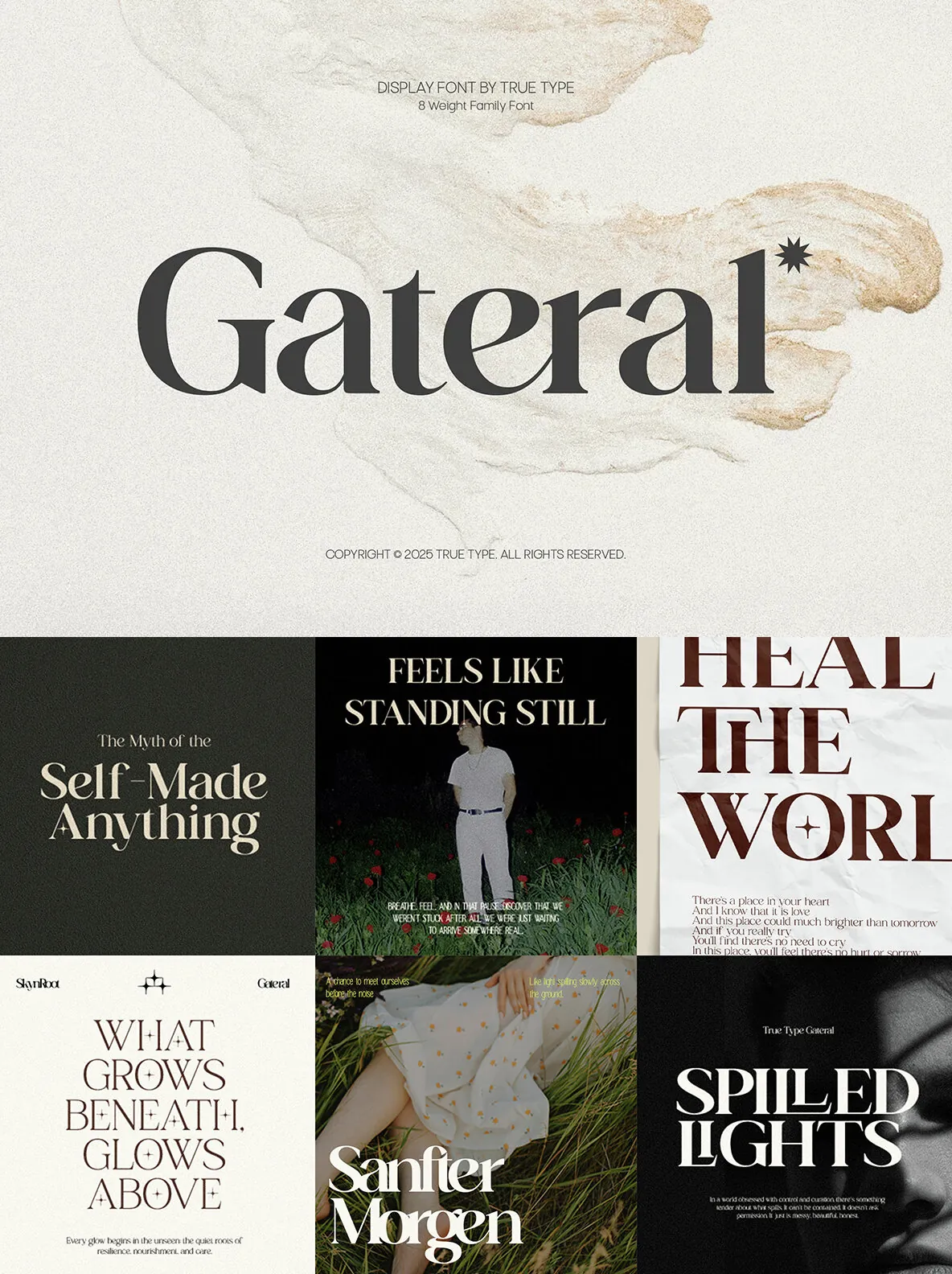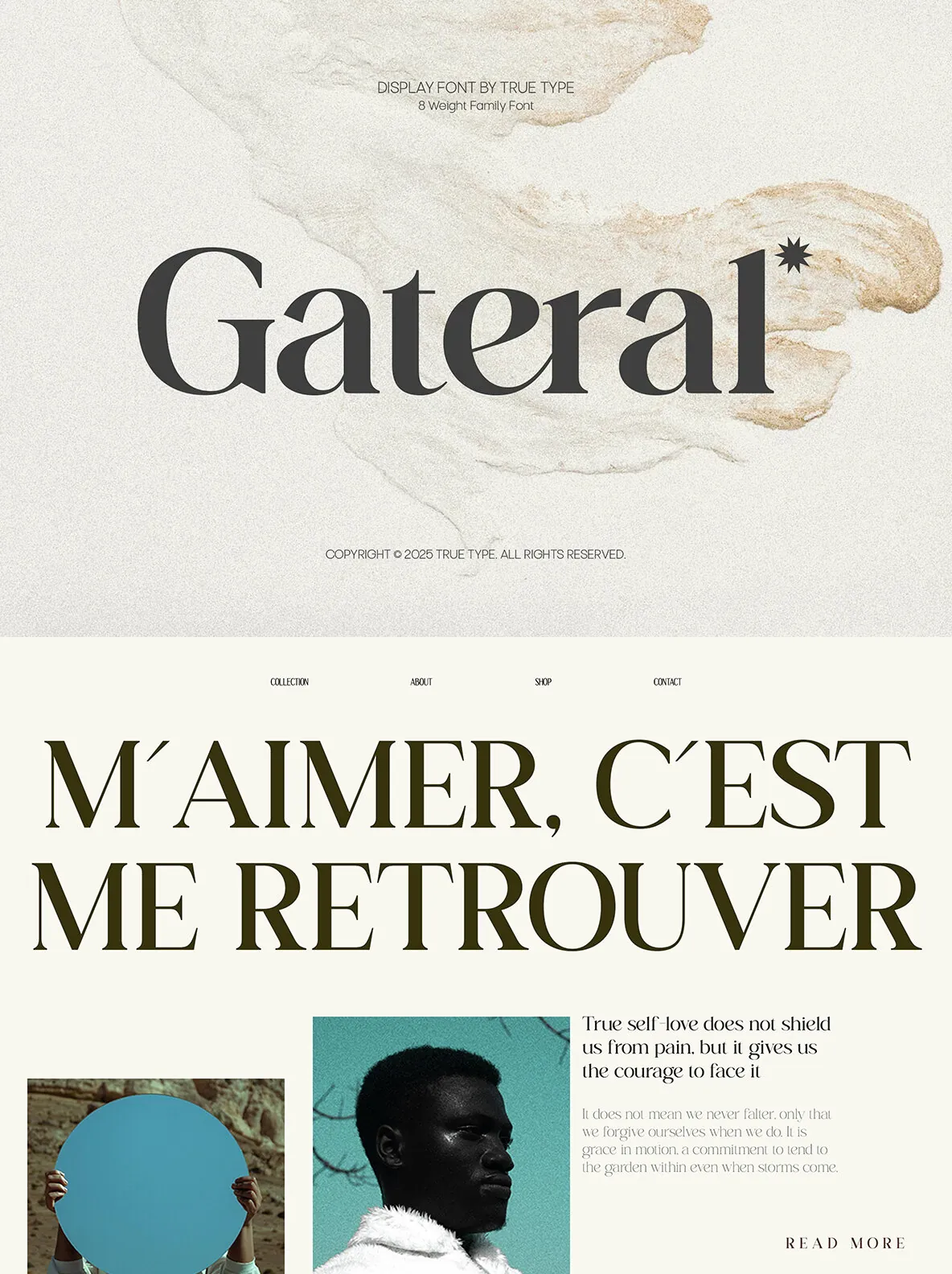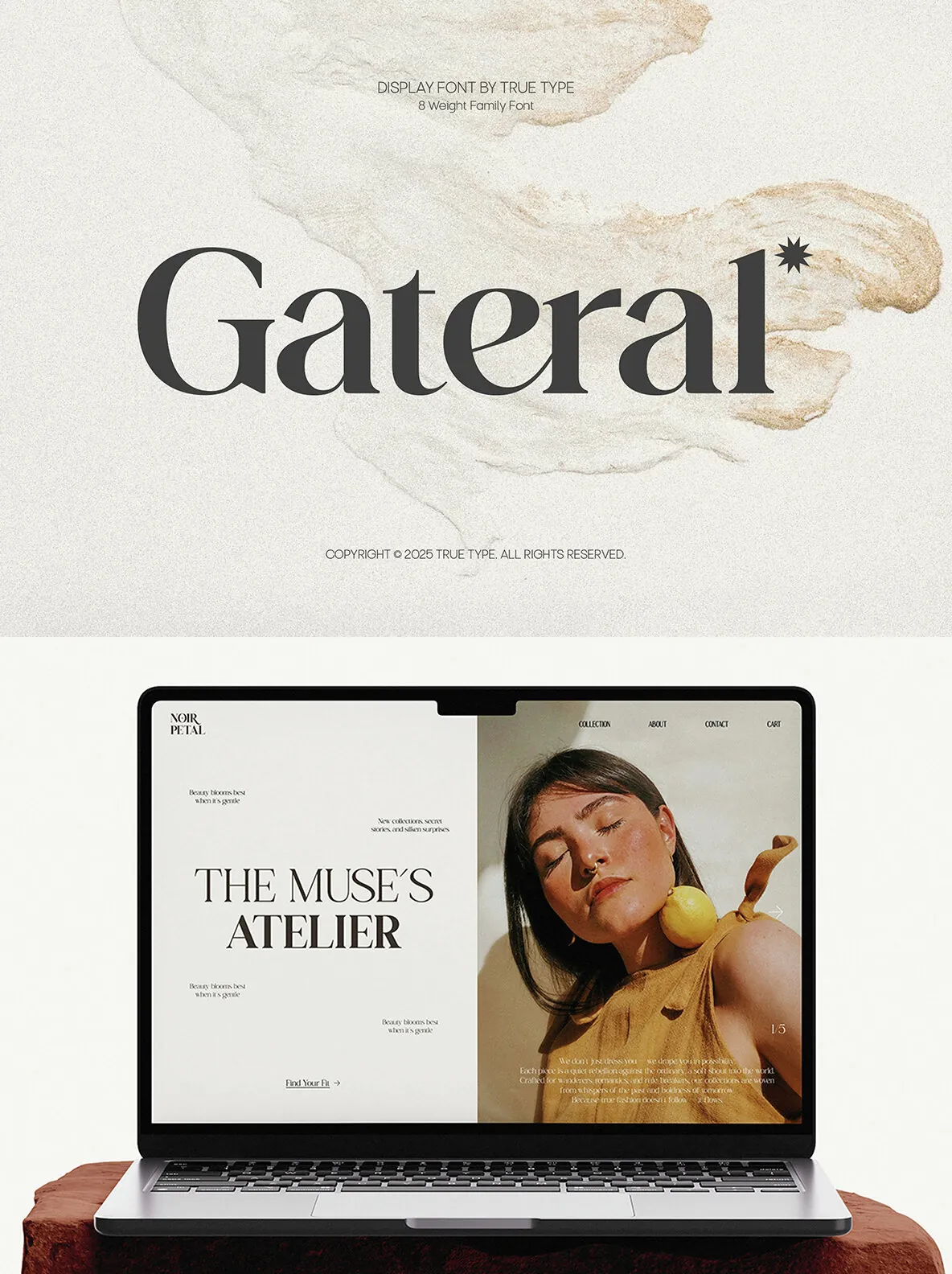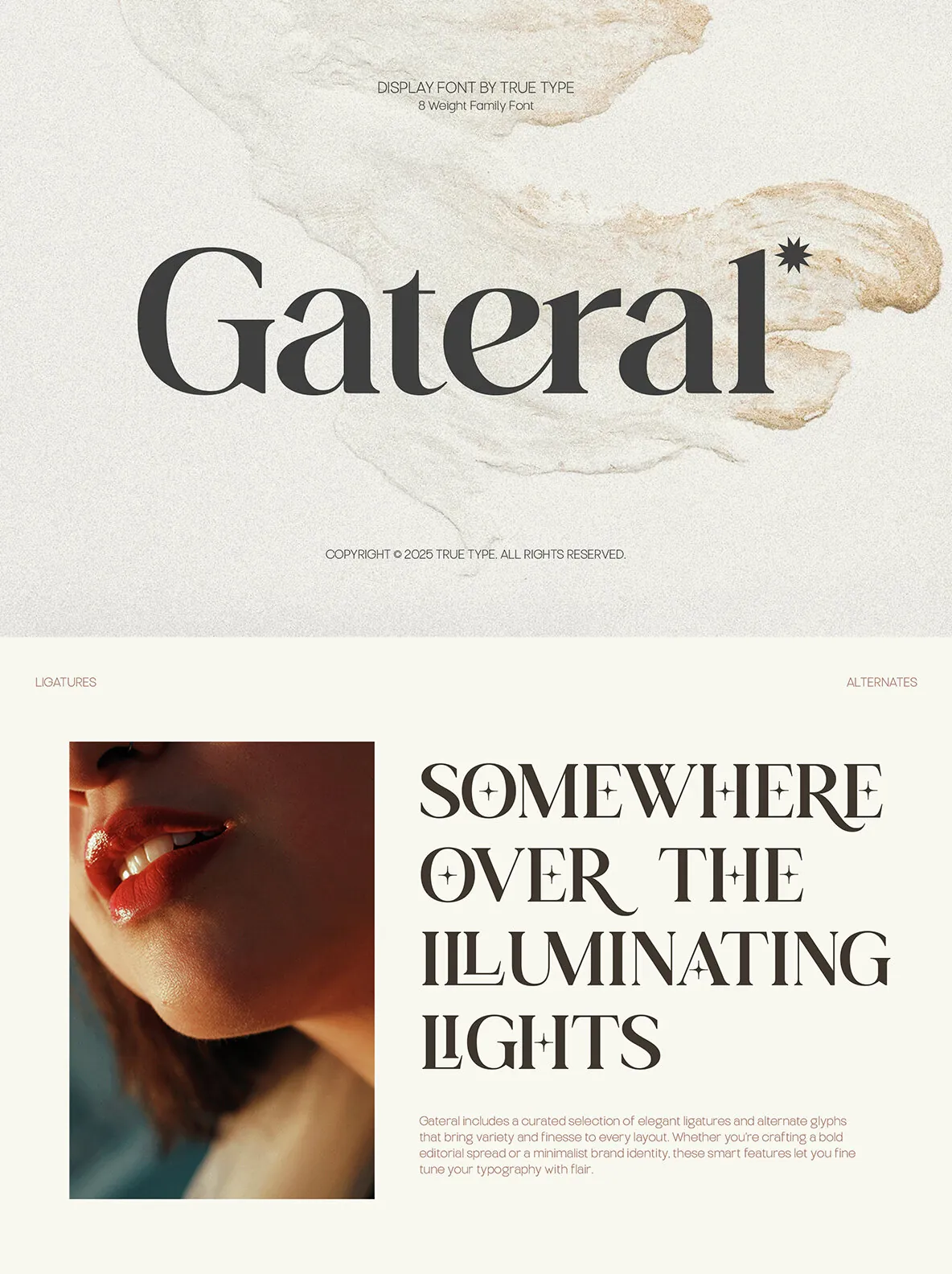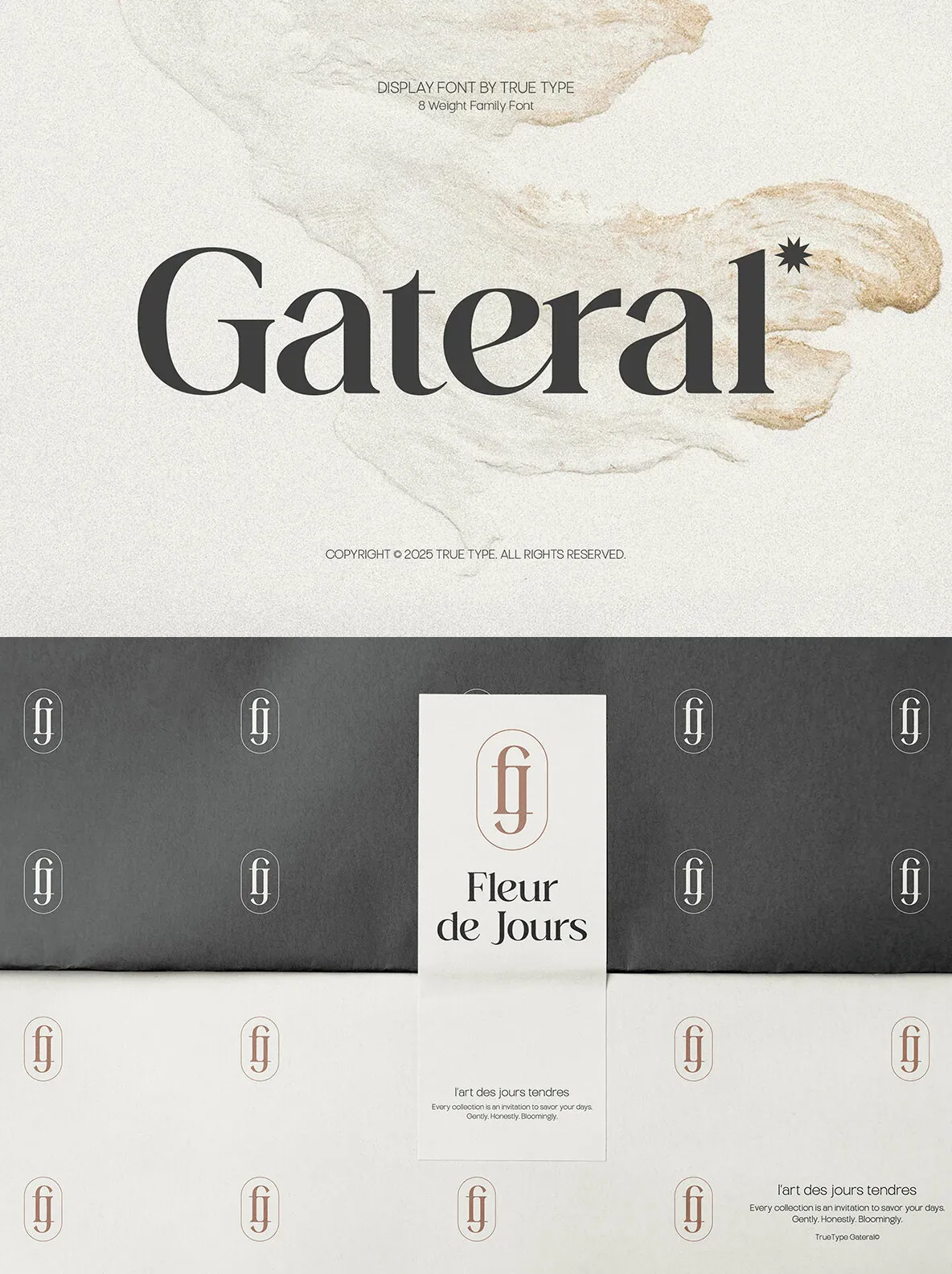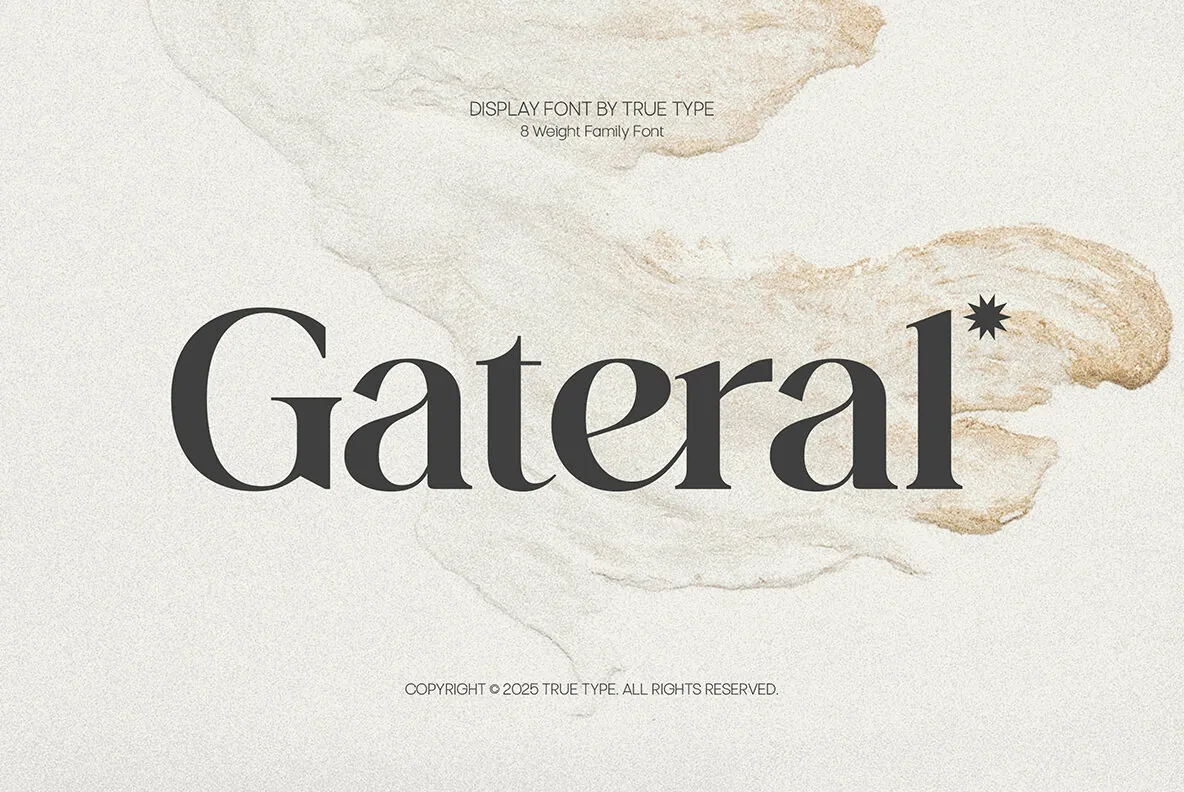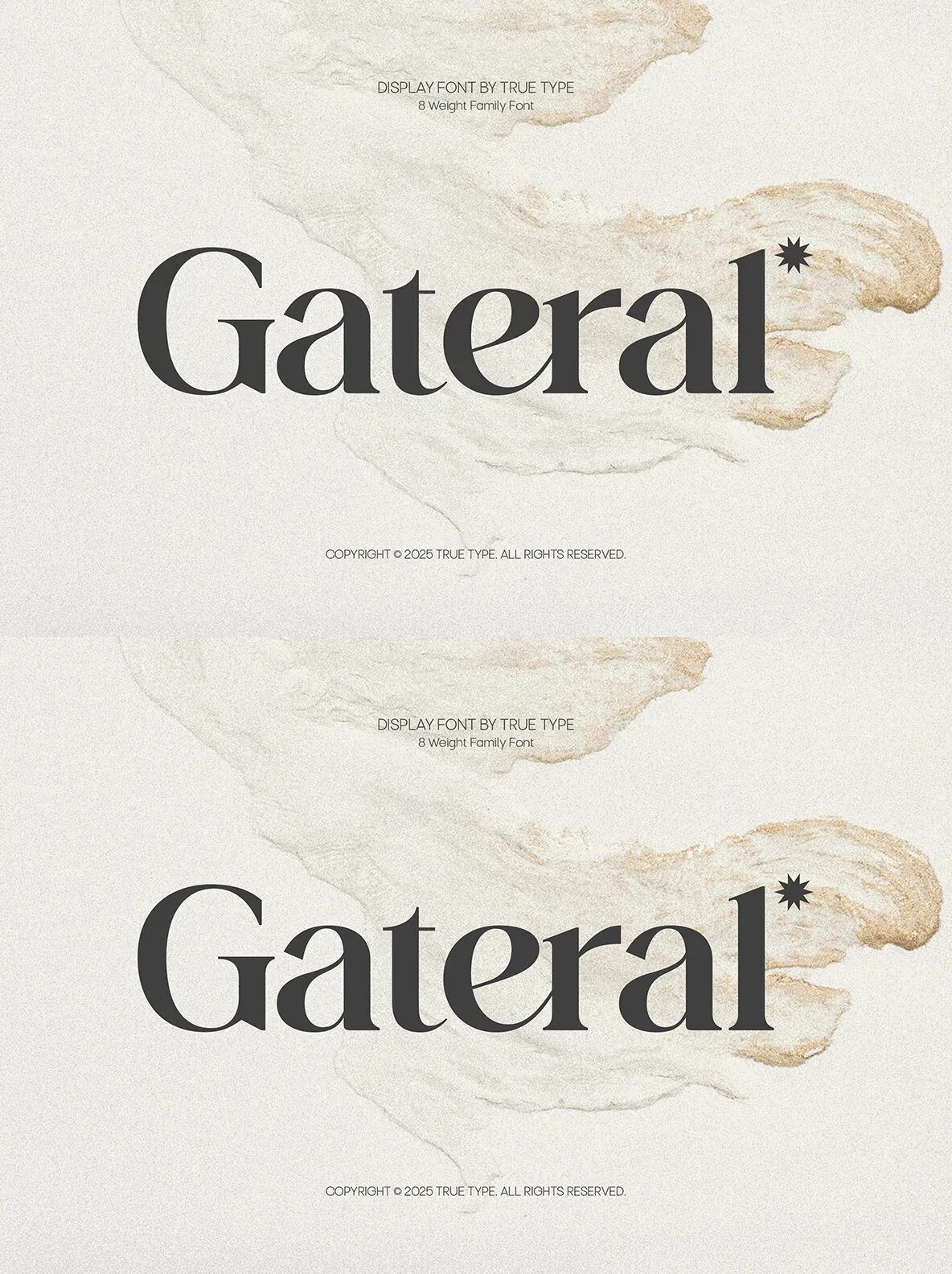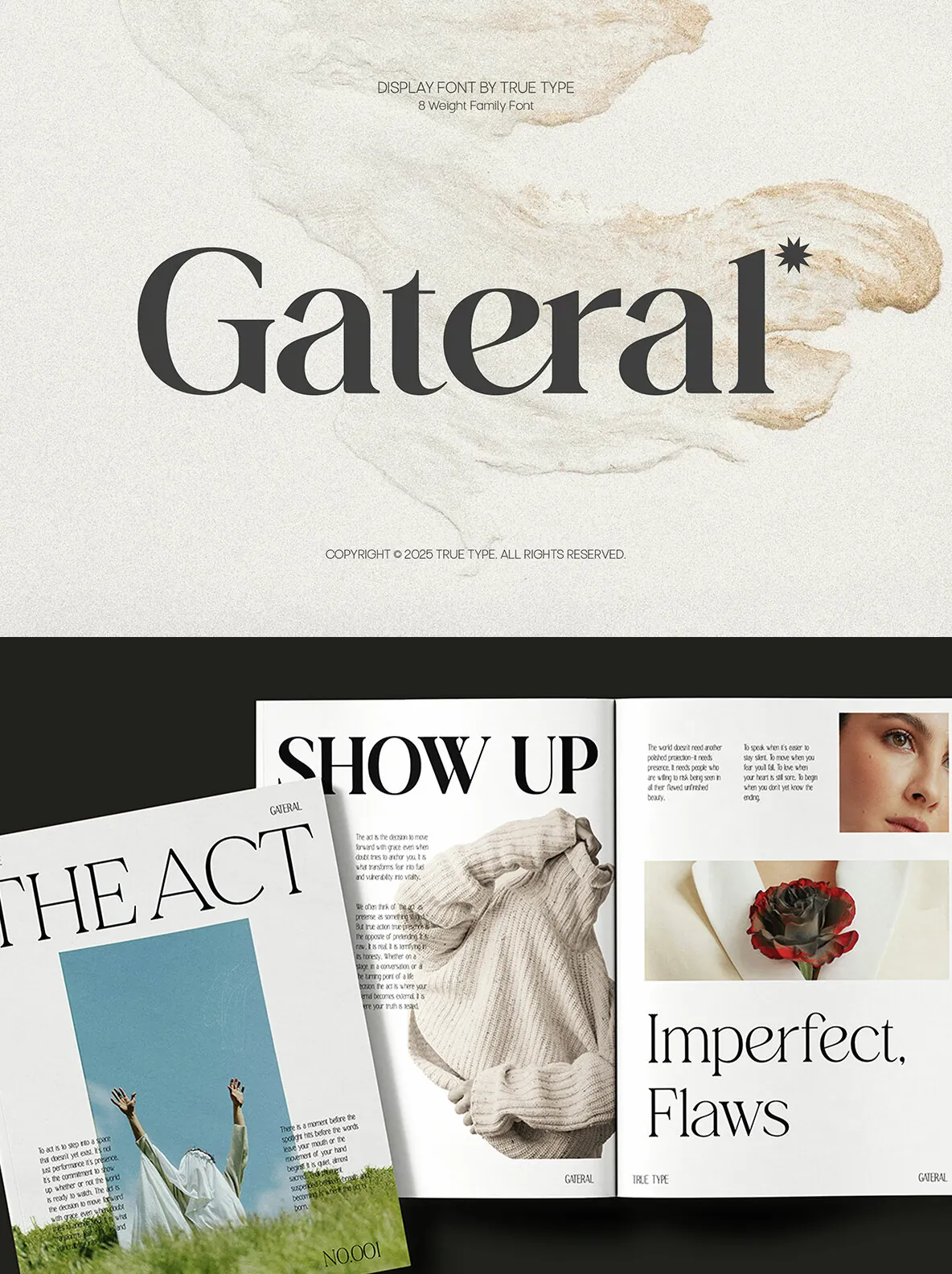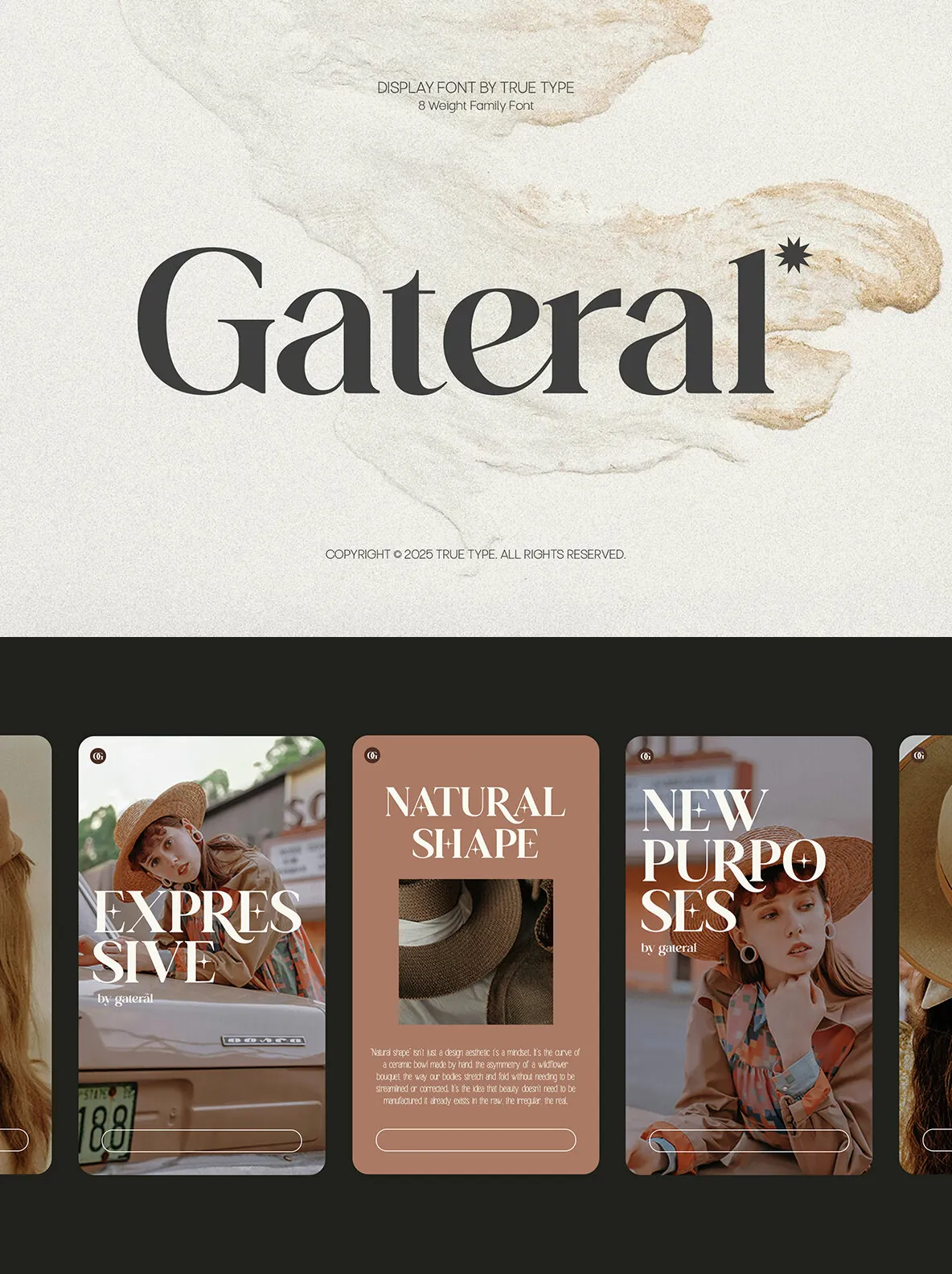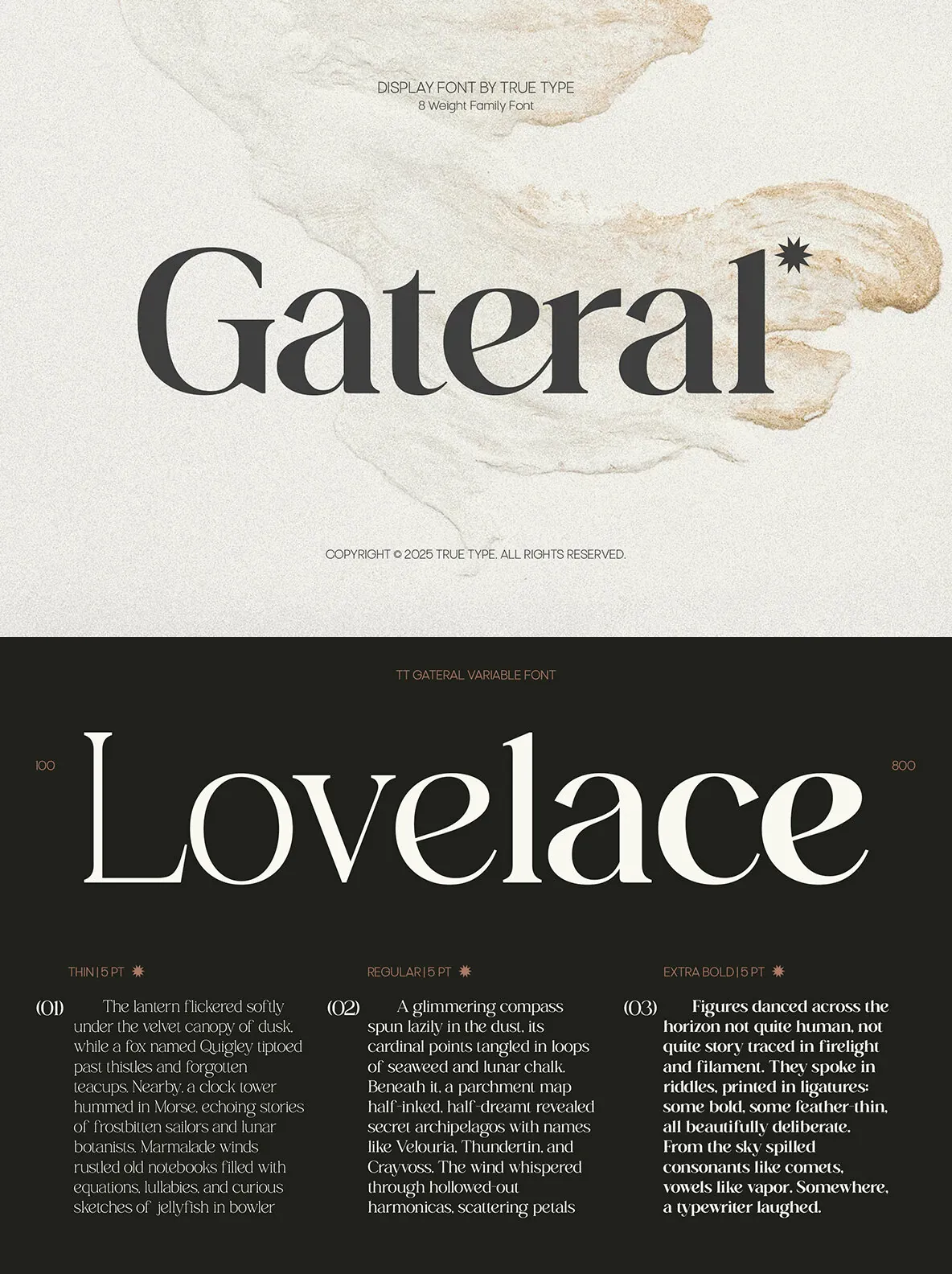
TT Gateral: Elegance in Every Curve
TT Gateral is a serif typeface exquisitely crafted to embody clarity, balance, and subtle elegance. Its clean structure and gentle contrast render it adaptable for diverse applications, from branding and editorial design to packaging and digital content.
Designed for readability across various sizes, TT Gateral exudes a professional tone that remains approachable. This serif typeface presents a confident yet inviting personality, ideal for thoughtful design projects.
Versatile Applications
Editorial Layouts
– Perfect for creating engaging and sophisticated page designs.
Brand Identities
– Provides a refined touch to any brand imagery.
Books & Logos
– Offers a classic look with a modern twist.
Presentations
– Enhances communication through its elegant and clear structure.
Social Media
– Adds charm and readability to visual content.
TT Gateral gives designers a flexible tool to achieve calm, clear, and well-structured visual communication, making it a cherished asset in digital design endeavors.